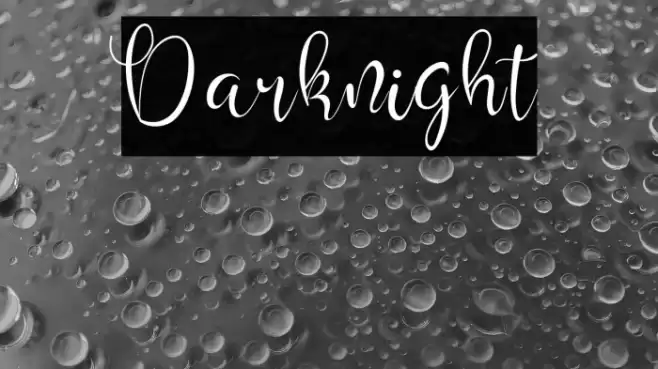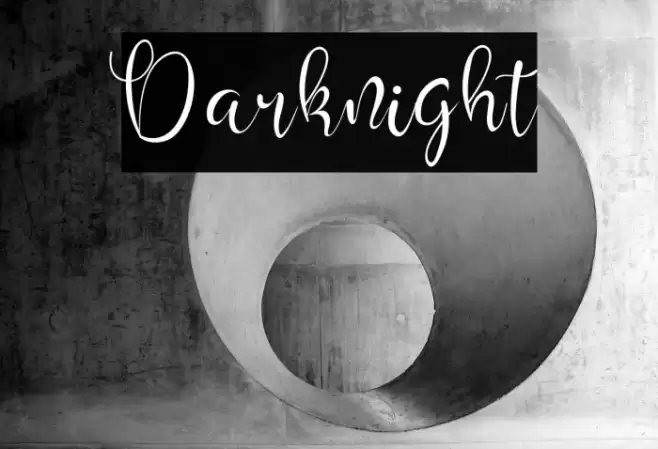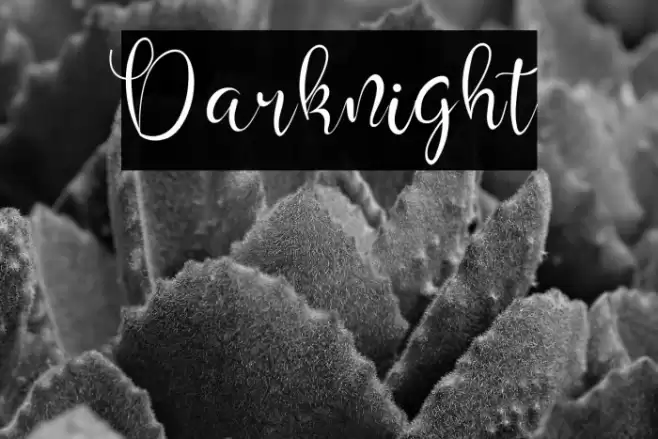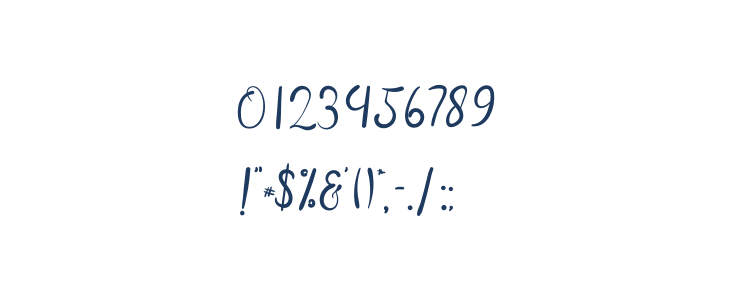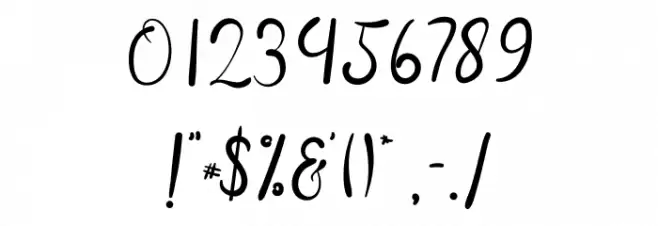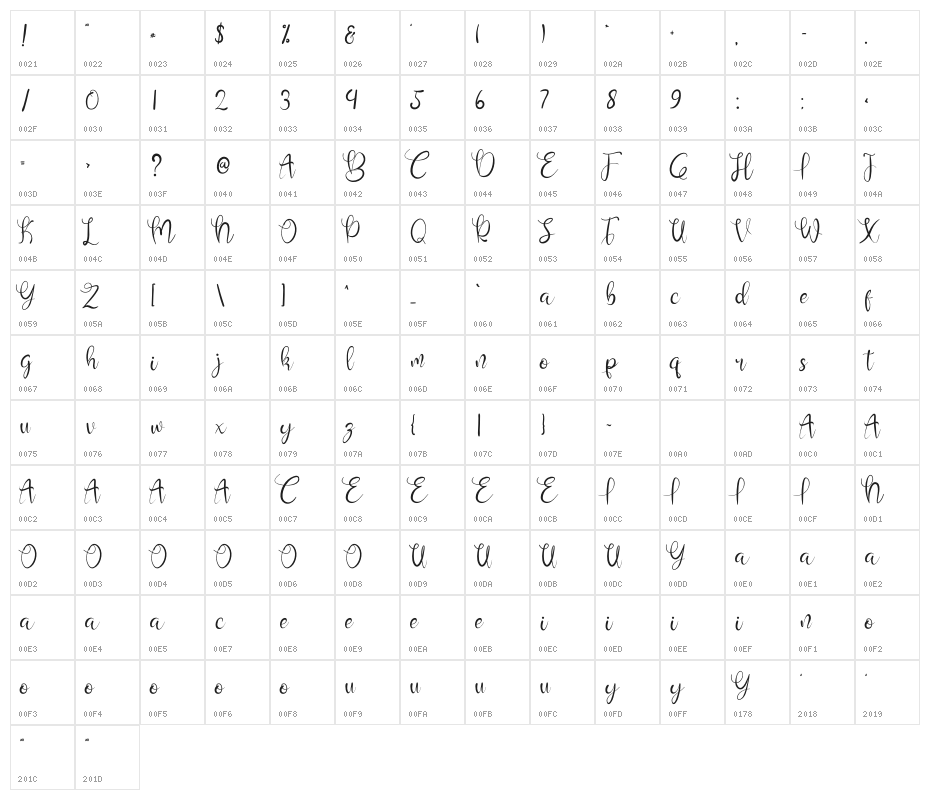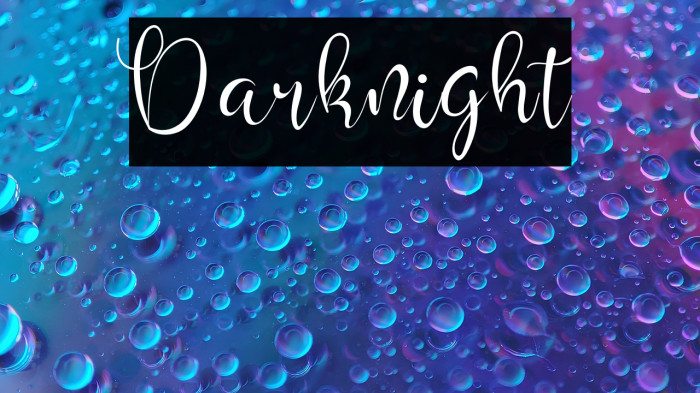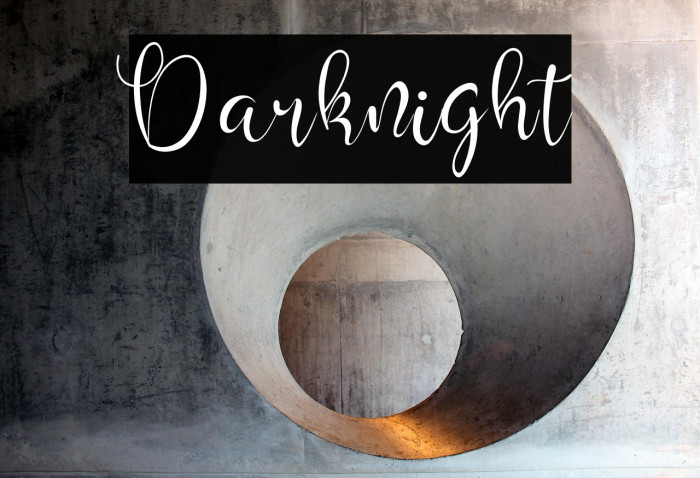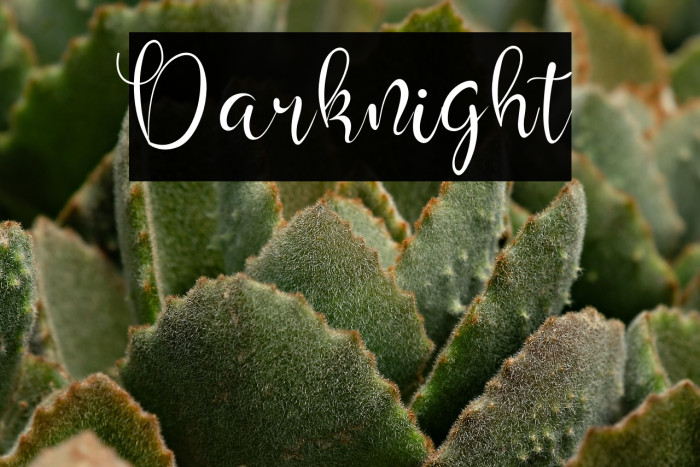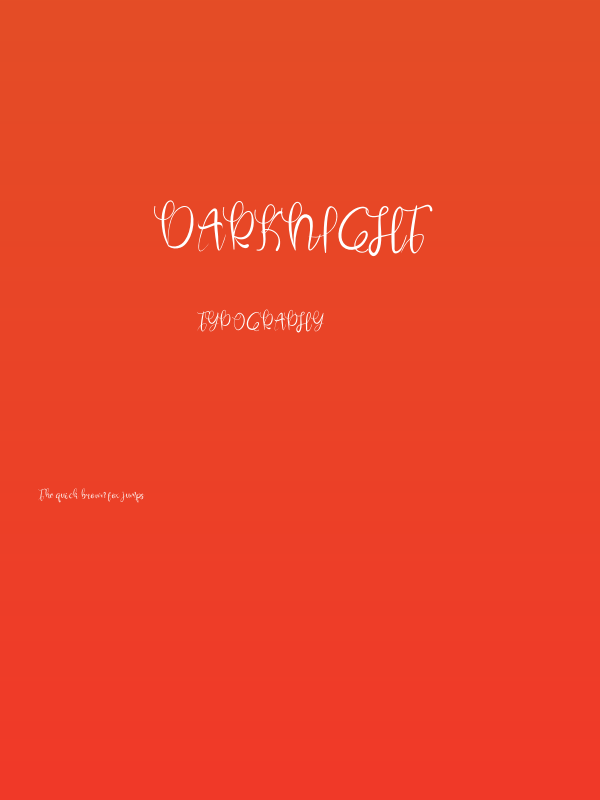
Darknight Font
Darknight Description
This font features an elegant and flowing script style, characterized by its smooth, cursive strokes and artistic flair. The uppercase letters are bold and expressive, with a distinct loop and swirl design that adds a touch of sophistication. The lowercase letters maintain a consistent fluidity, enhancing readability while preserving the font's decorative nature. Numbers and special characters are crafted with the same attention to detail, ensuring a cohesive look across all elements. This font is perfect for projects that require a personal and artistic touch, such as invitations, branding, and creative designs.
A stylish and flowing script font with elegant cursive strokes from Regular fonts.
- Proposed Projects: Ideal for wedding invitations, branding, greeting cards, and artistic projects.
- Use Case: Logos, Headlines, Invitations